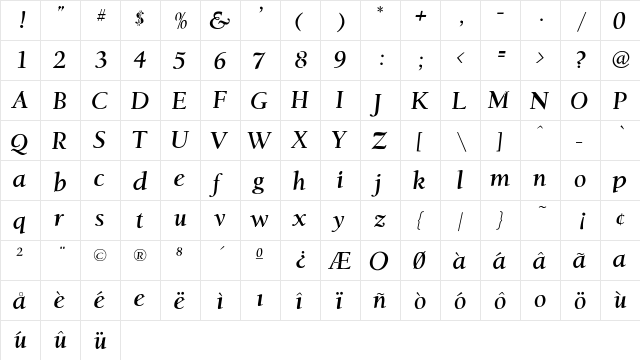
PCHeatherville Regular
Design Context for PCHeatherville Typeface
PCHeatherville is a composed and adaptable typeface that performs quietly and consistently across a wide range of design contexts.